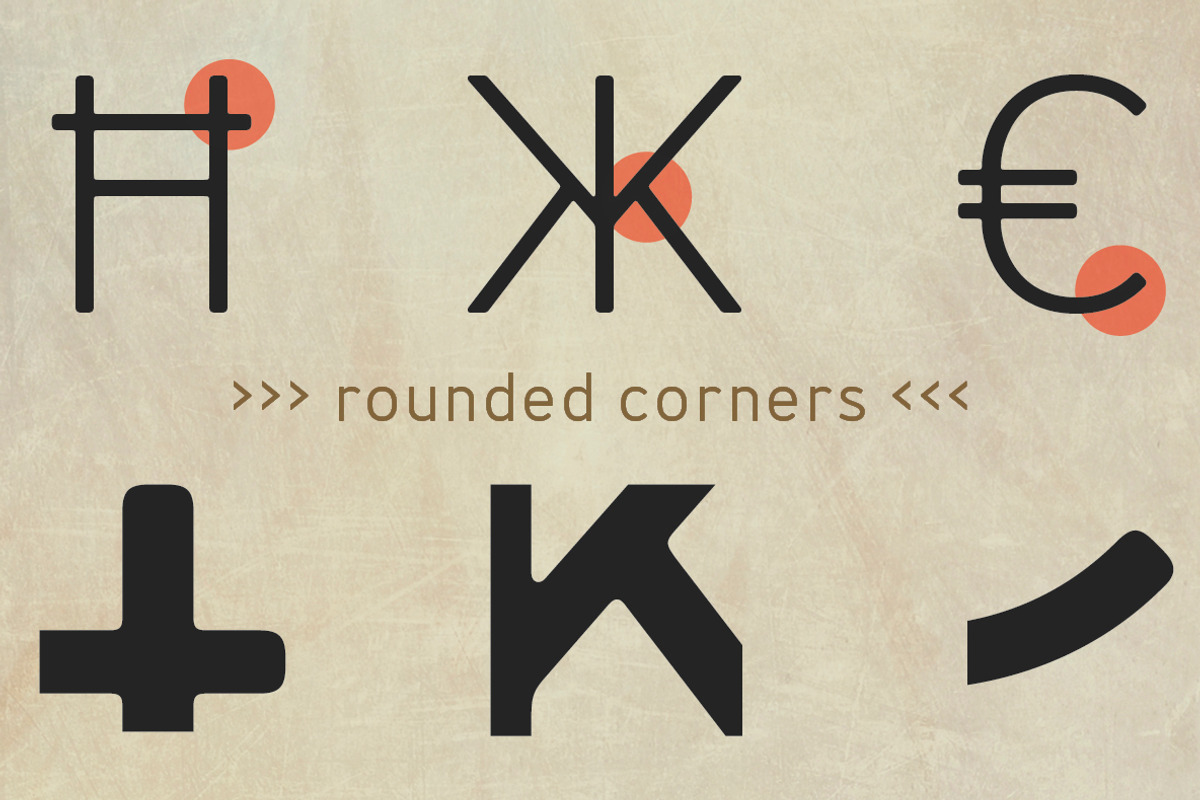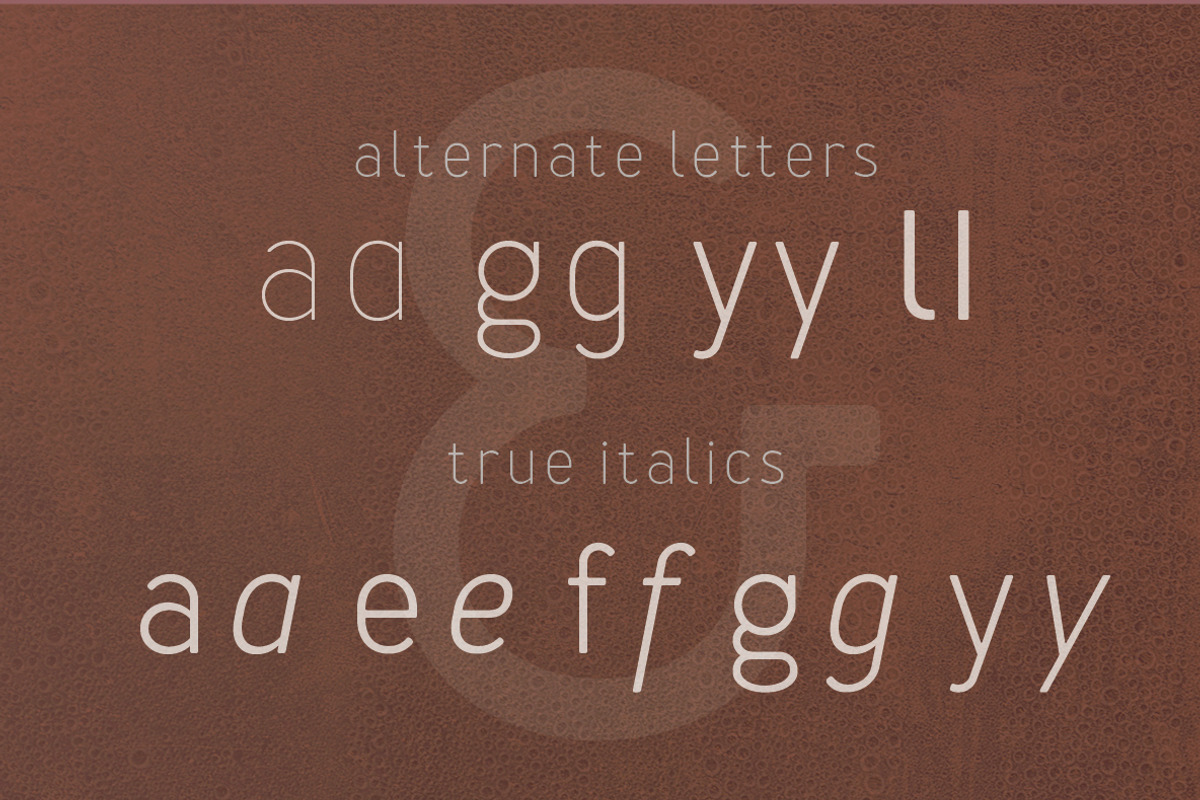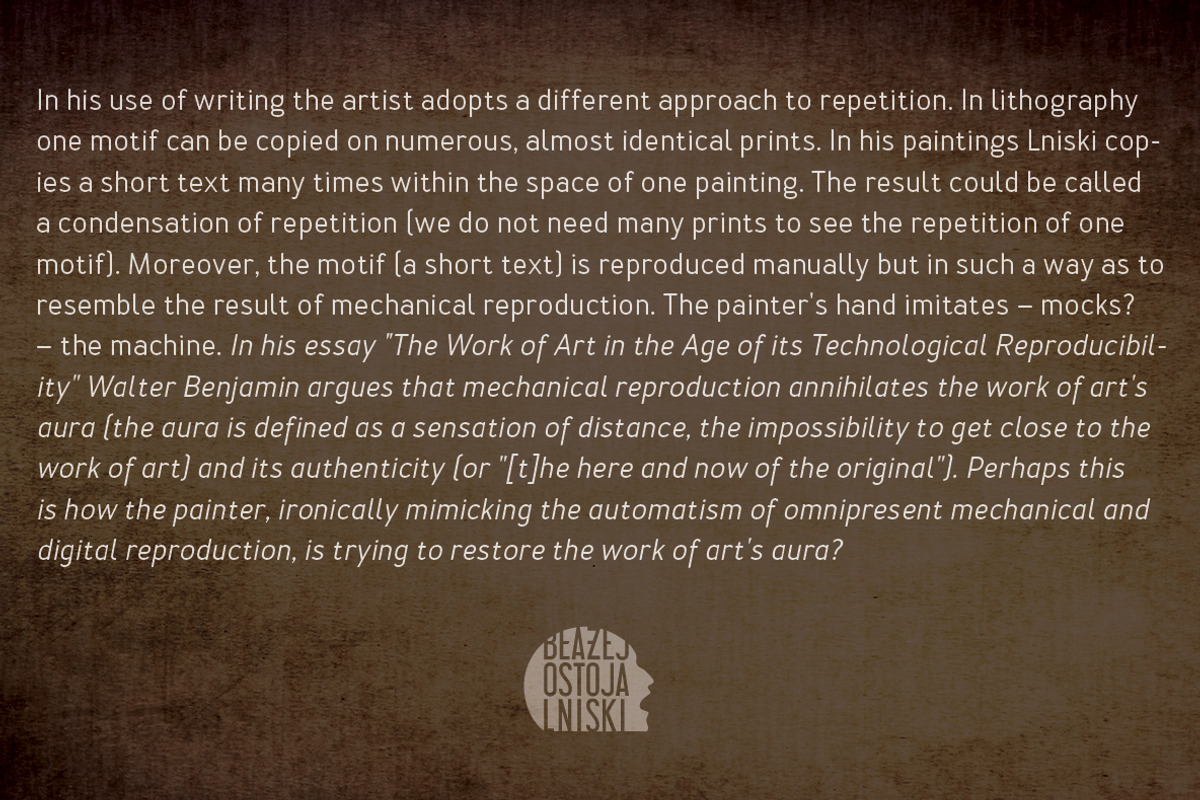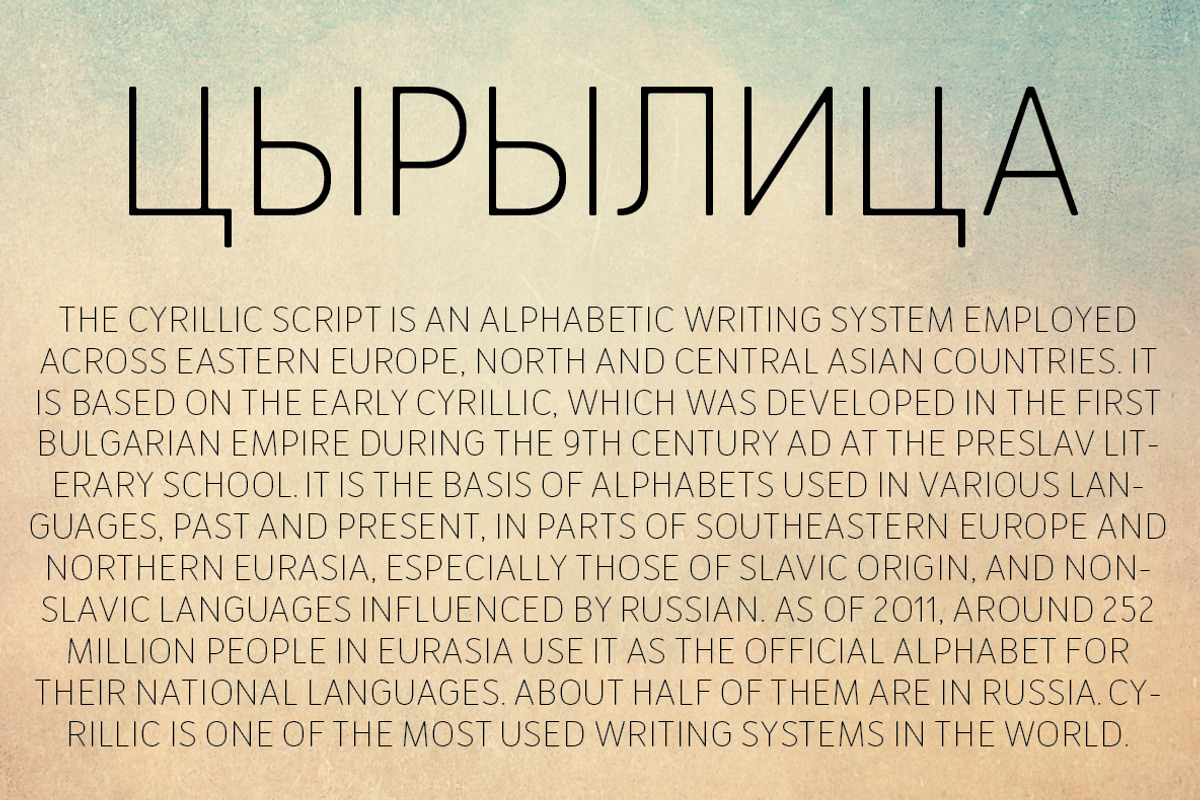
Merlo family fonts
Merlo family fonts by Blazej Ostoja Lniski is a font selected for branding, posters, packaging, typography.
- Font Merlo is characterized by eight different varieties – lower and uppercase characters.
Why Merlo family fonts is worth a look
Merlo family fonts by Blazej Ostoja Lniski fits naturally into Branding, posters, packaging, typography.